Classification
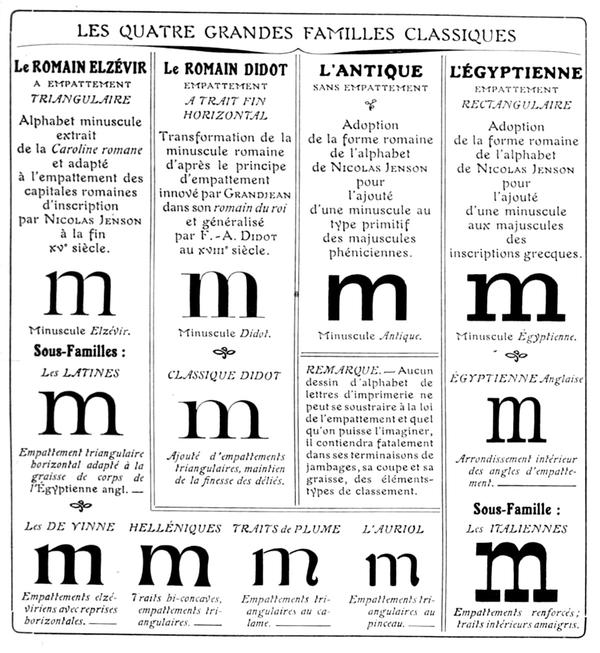
Francis Thibaudeau’s typographic classification, from Manuel français de typographie moderne, Francis Thibaudeau, 1924. Collection of Bibliothèque nationale de France (French National Library).
With the many styles and designs of typefaces that exist, it can be difficult to describe, sort, or even find them in a catalog that isn’t familiar to the user.
Each writing system has its own typeface classification categories that best suit its nature and history. As aesthetic values differ from one culture to another, the same (or similar) style may not convey the same impression across different scripts, and one category considered a convention for one script is not always relevant to others.
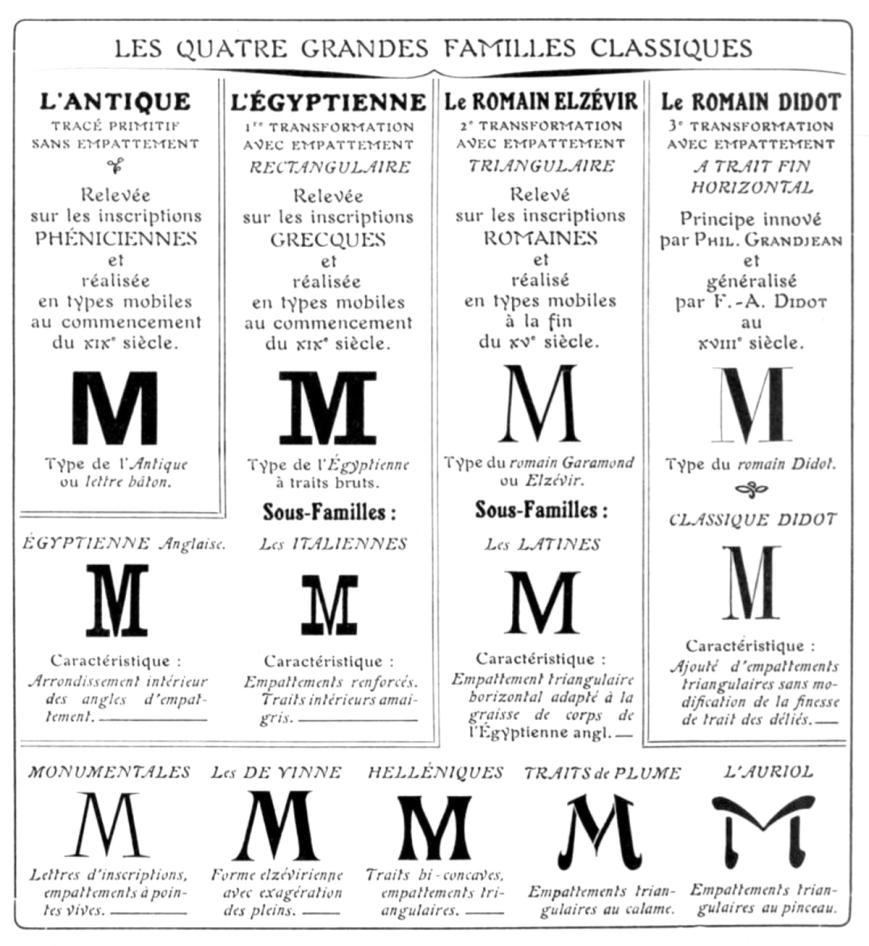
For example, Latin typefaces have been sorted into multiple classification systems since the beginning of metal typesetting. Here are some of them:
• Thibaudeau, by French typographer Francis Thibaudeau in 1921, with four categories: Elzévirs, Didots, Égyptiennes and Antiques;
• Vox (or Vox-Thibaudeau), by French historian Maximilien Vox in 1954, who started with the Thibaudeau classification as a basis and added more categories to include the additional typeface styles in the Deberny & Peignot type foundry’s library;
• Vox-ATypI, with additional categories and subcategories from the ATypI (Association Typographique Internationale), added between 1962 and 2021.
Today, classification systems vary from one type foundry to another, using more or less “standardized” terms better suited to their own catalog or the scripts covered. These boxes also help users find what they are looking for in a wide variety of choices. They are not rules to be followed to the letter. Imagination and creativity shouldn’t be confined!